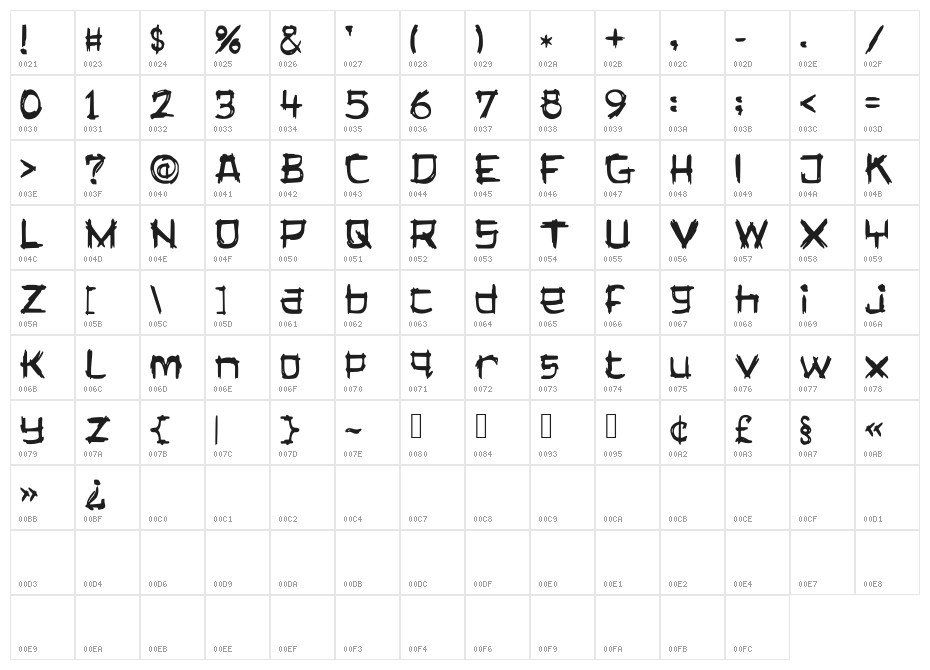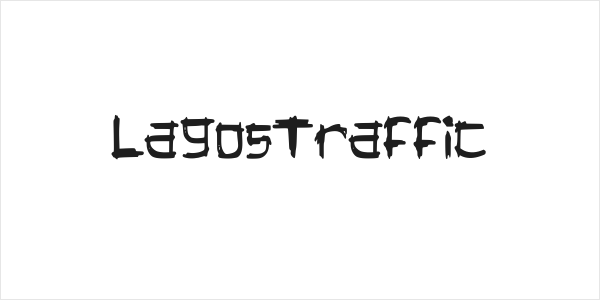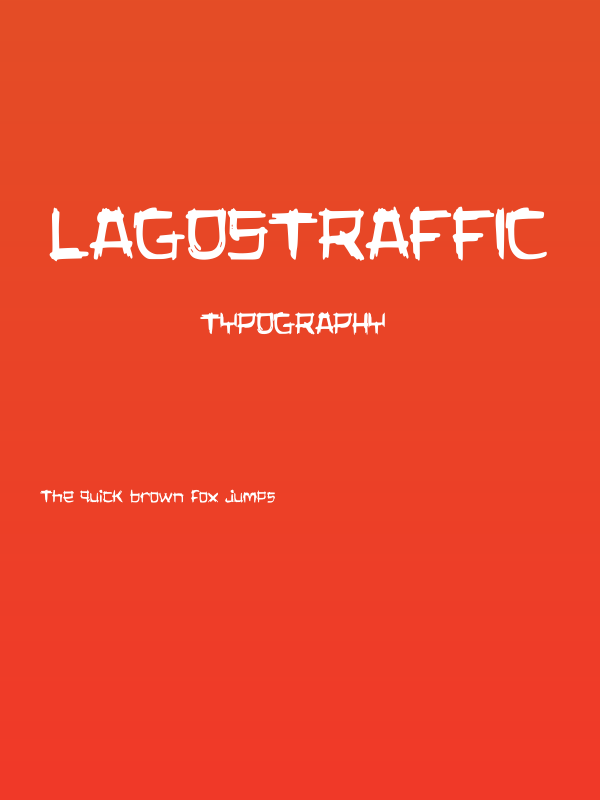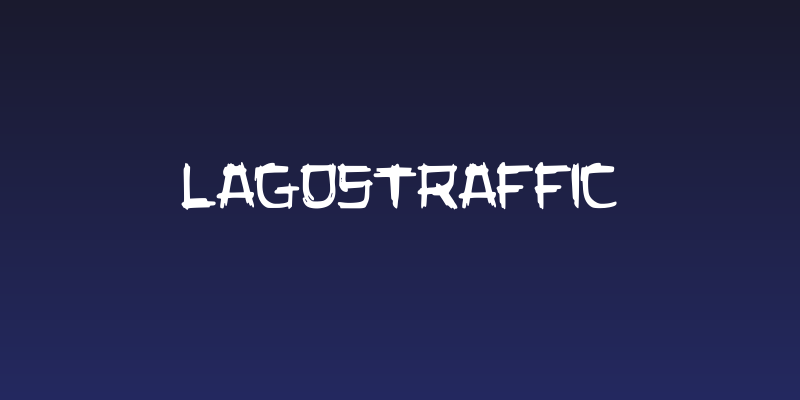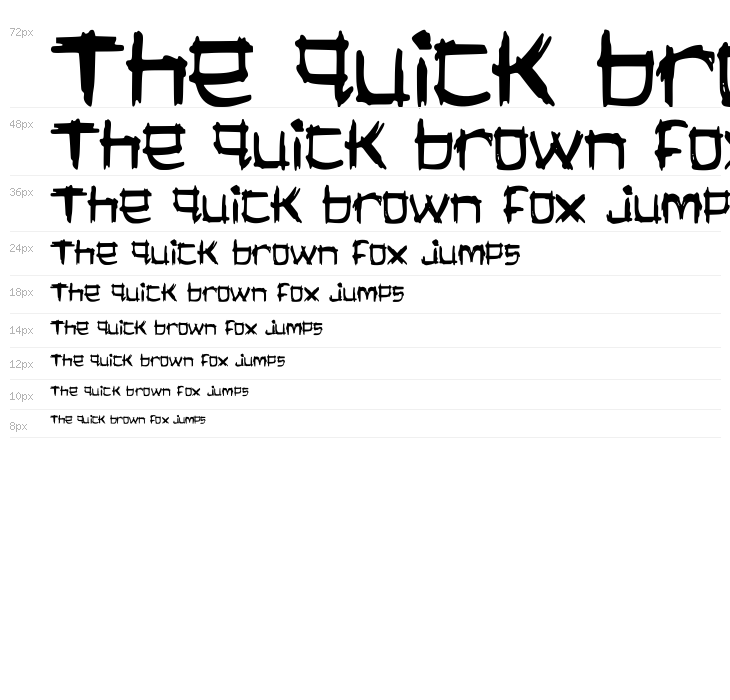
LagosTraffic Font
LagosTraffic Description
This font features a bold, graffiti-inspired style with jagged edges and an urban aesthetic. The characters are highly stylized, with a rough, hand-drawn appearance that conveys a sense of energy and movement. The uppercase and lowercase letters maintain a consistent design, while the numerals and special characters complement the overall look. This font's unique style makes it stand out, perfect for projects that require a bold and unconventional typeface.
| Overall Style | Urban, Energetic, Graffiti |
| Proposed Projects | Ideal for street art designs, urban-themed posters, music album covers, and edgy branding projects. |